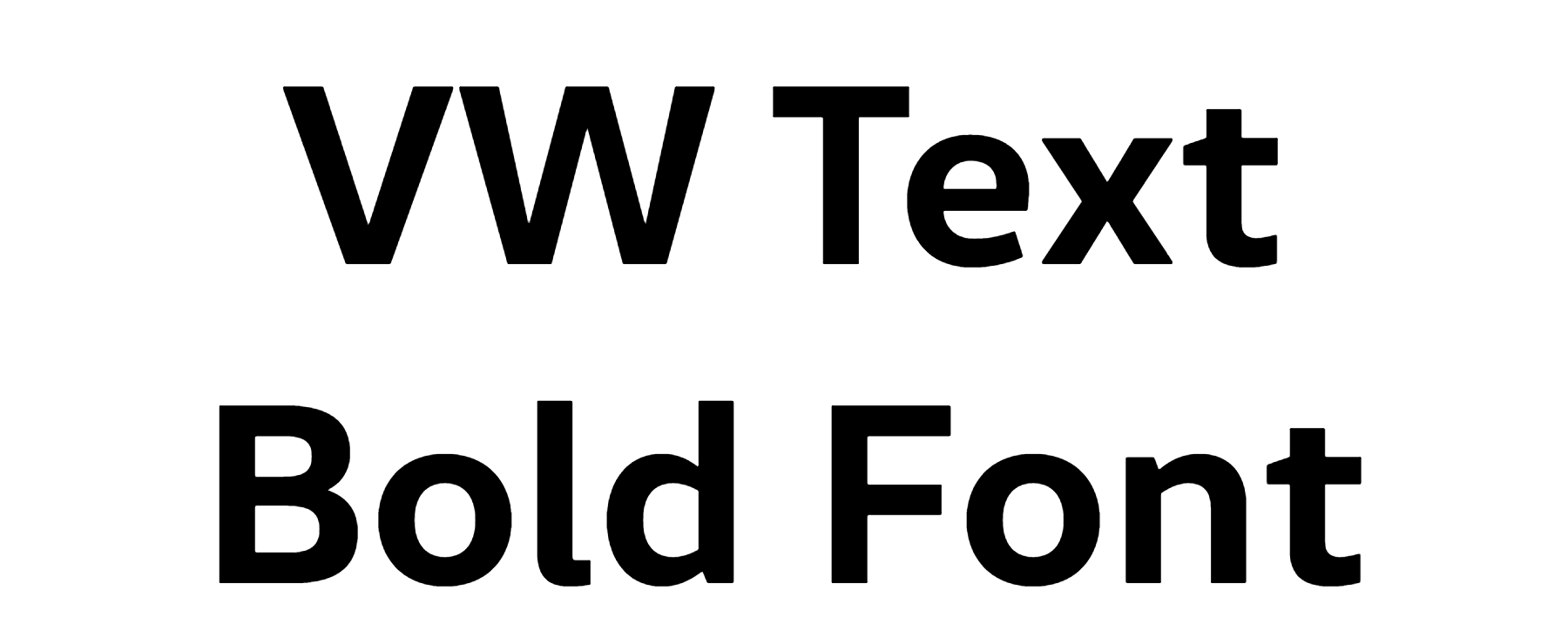
VW Text Bold
VW Text Bold is a sans serif font created by Hannes von Doehren, Livius Dietzel (2014). Simple, open letter shapes keep it easy to read at almost any size, from app buttons to big headlines. The free download includes two styles, and you can try every one of them with your own text in the preview above.
In the notes inside the font file, Hannes von Doehren, Livius Dietzel describes it like this: “VW Text was created in collaboration with MetaDesign.”
What You Can Type With VW Text Bold
You get every letter from A to Z in both cases and all the numbers from 0 to 9, which means VW Text Bold can handle full sentences, dates and prices. Everyday marks like &, !, ? and @ are there too. Thanks to its accented letters, it also works for Spanish, French, German, Portuguese and Italian, not just English. On top of that, it includes Greek and Cyrillic characters. Of its 730 glyphs, about 97 are not on your keyboard at all. That is where the alternates explained below live.
How to Use the Alternate Letters in VW Text Bold
Where VW Text Bold Works Best
Think of VW Text Bold for websites, app screens and clean logos. It works for headings and body text alike. If the download has several weights, use a heavier one for titles and a lighter one for paragraphs. Because the family has more than one style, you can mix them in a single design for headings, subheadings and highlights.